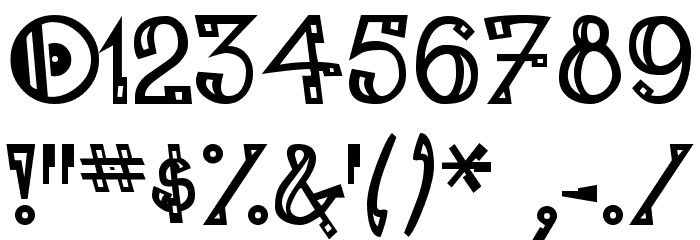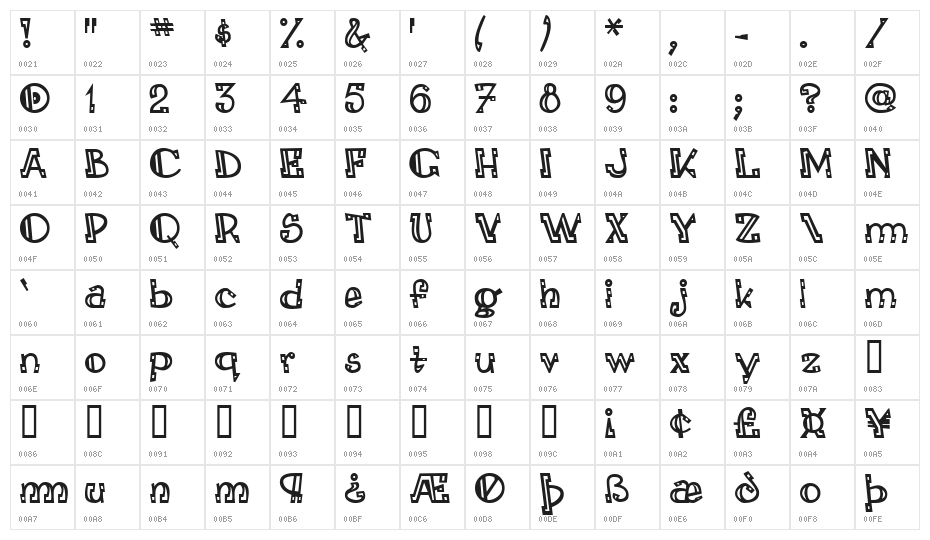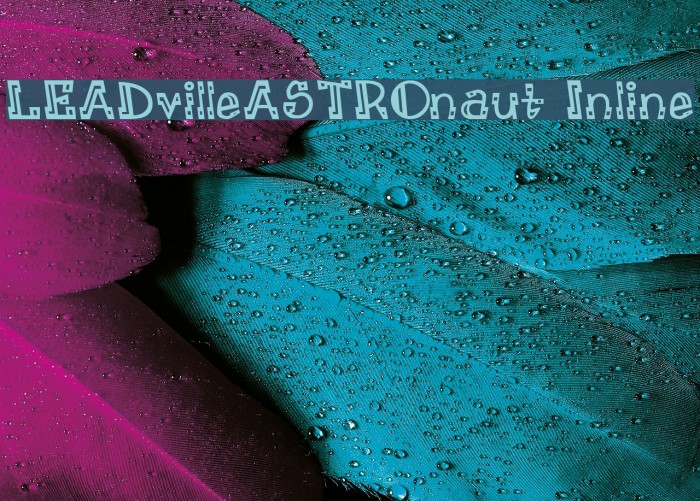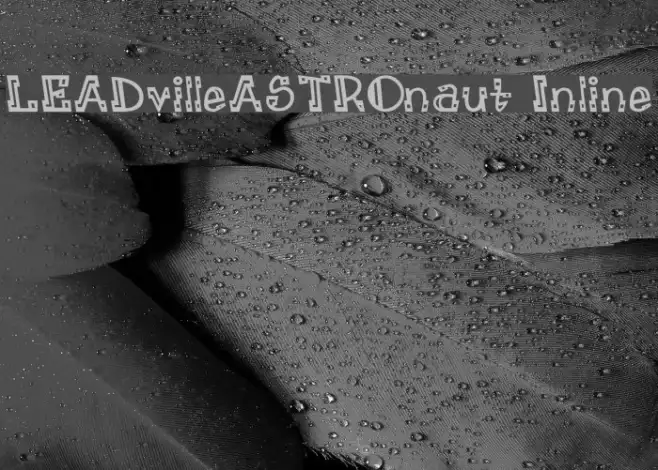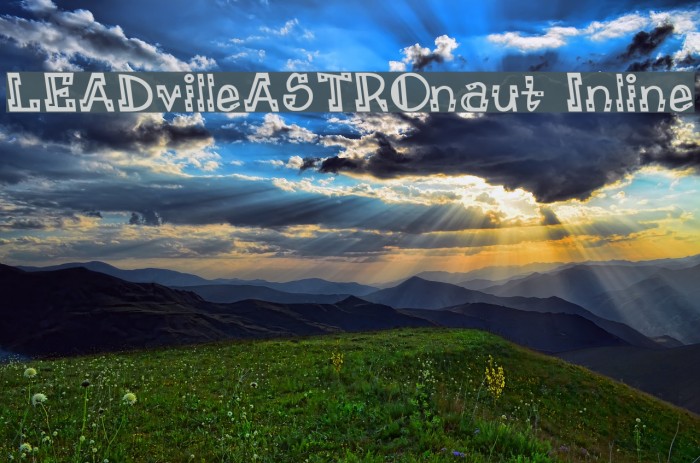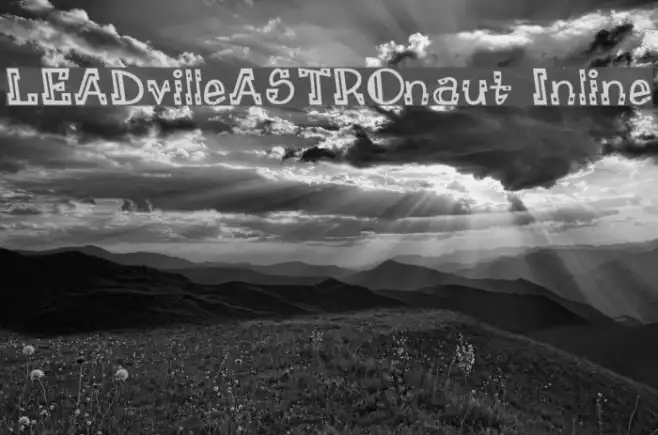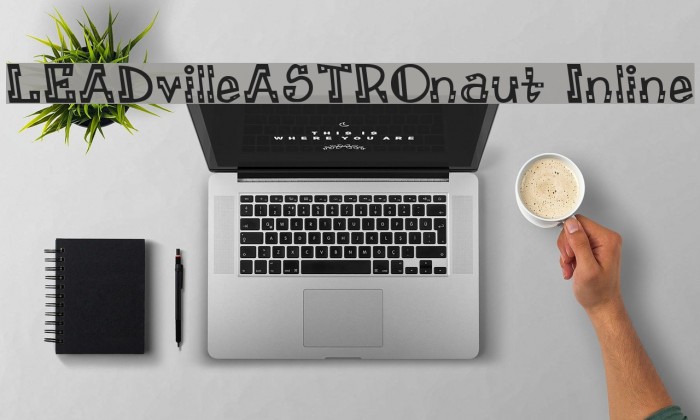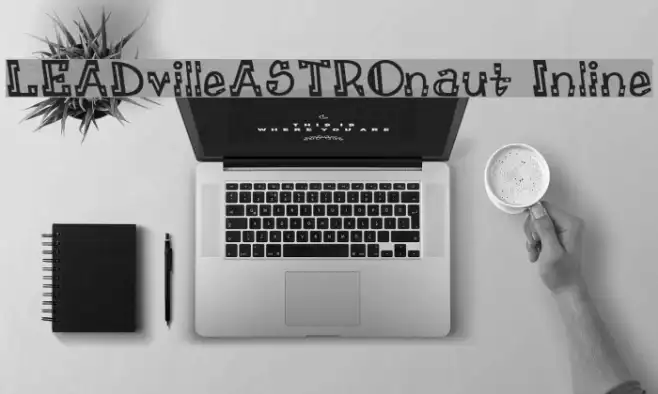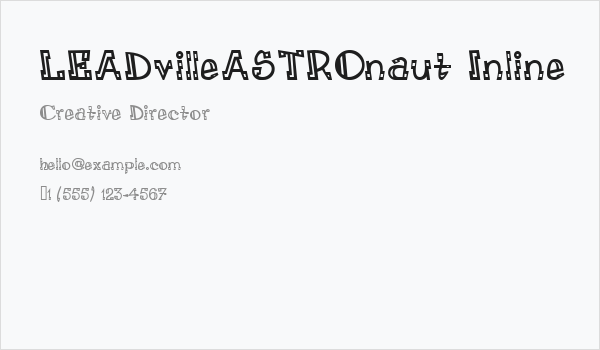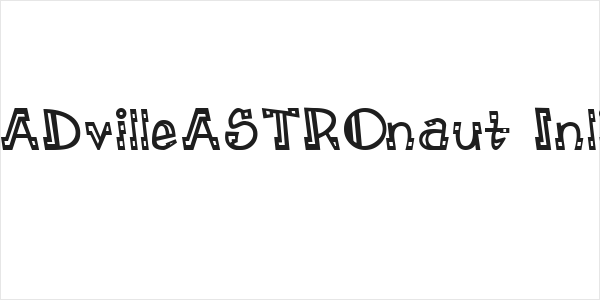
LEADvilleASTROnaut Inline Font
LEADvilleASTROnaut Inline Description
This font features a bold and playful design with a unique inline style that adds depth and dimension to each character. The uppercase and lowercase letters are crafted with a whimsical flair, incorporating geometric elements and a slightly retro aesthetic. The numerals and special characters maintain this playful theme, making the font suitable for creative and eye-catching designs. Its bold strokes and inline details create a striking contrast, ensuring readability while adding a decorative touch. This font is ideal for projects that require a fun and engaging visual style.
| Overall Style | Playful, Retro, Decorative |
| Proposed Projects | Ideal for children's books, posters, party invitations, and playful branding. |